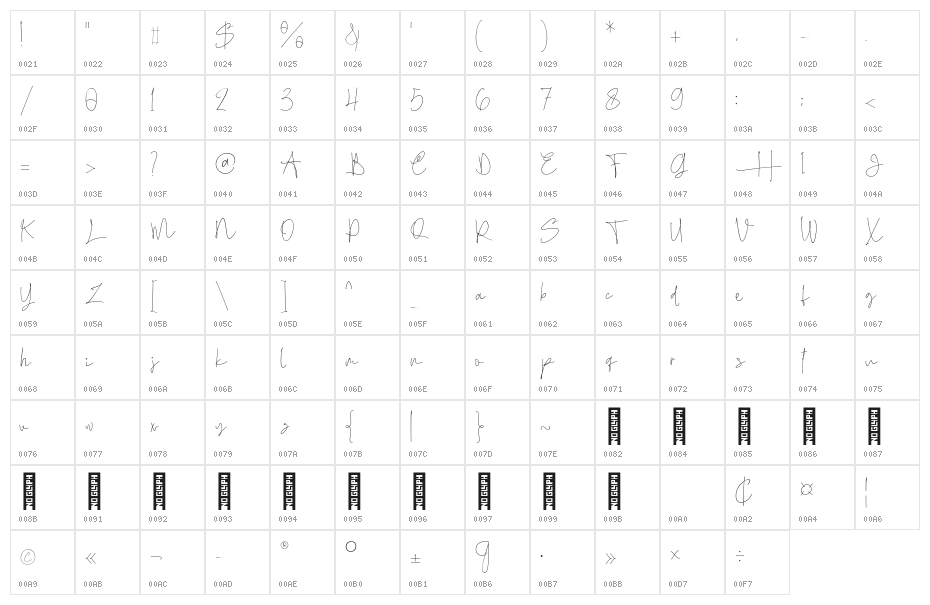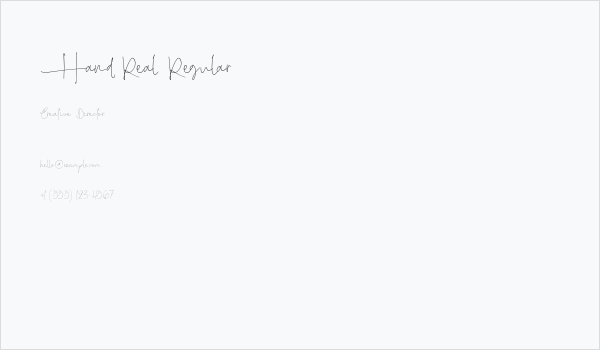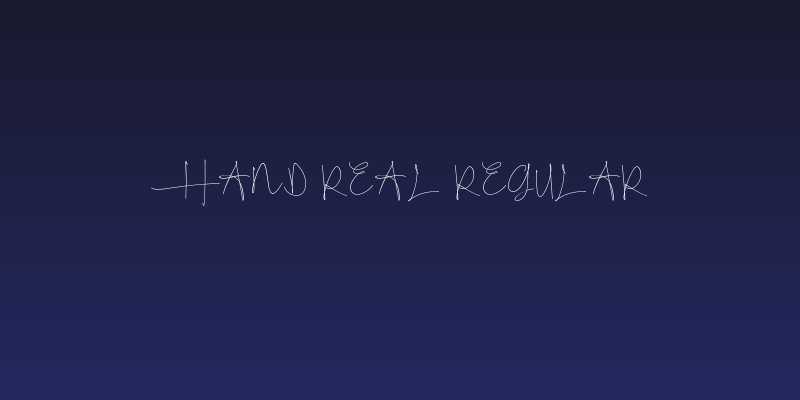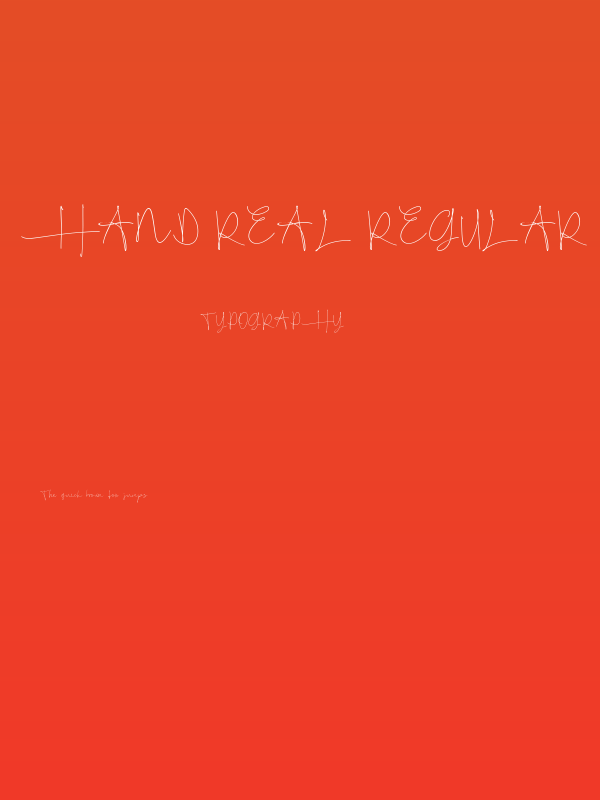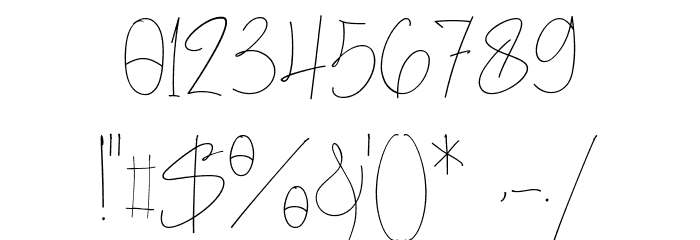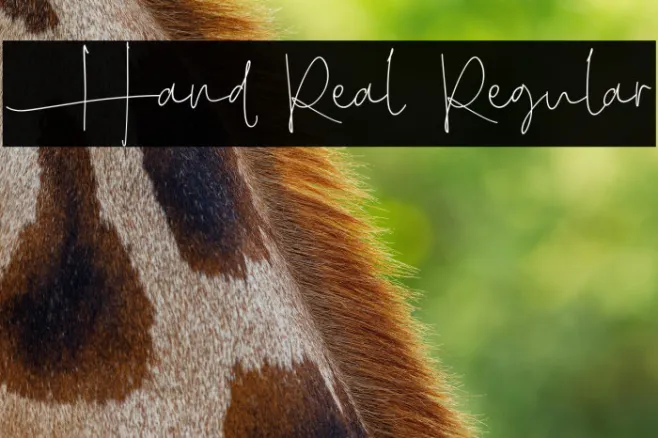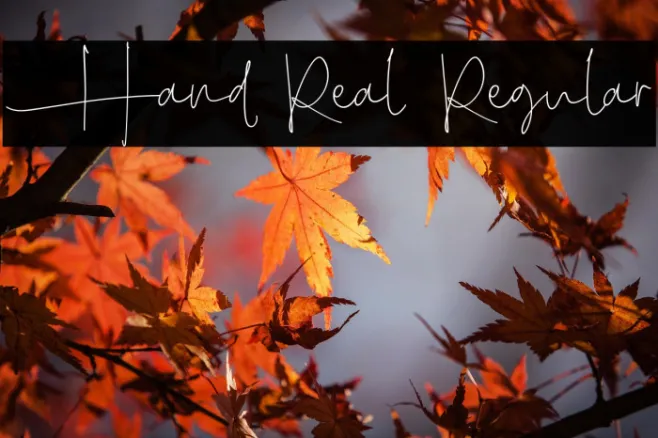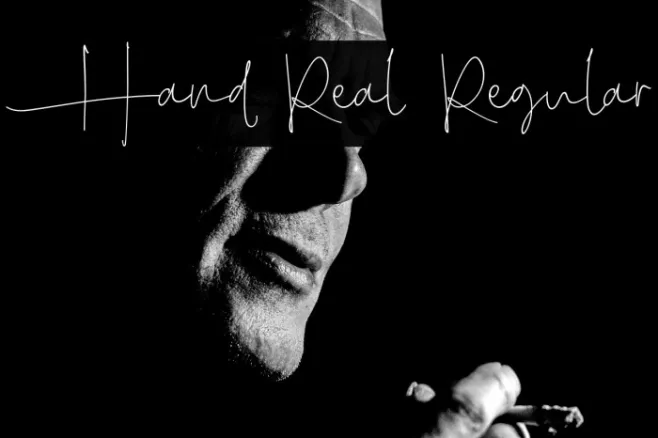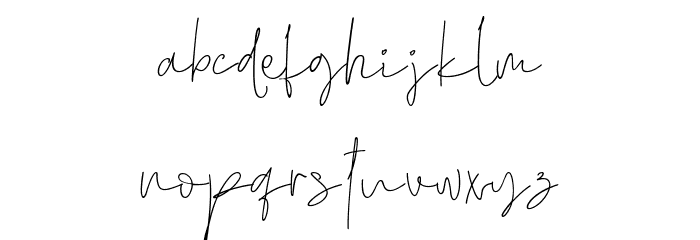
Hand Real Regular Font
Hand Real Regular Description
This font features a distinctive handwritten style that exudes a casual and personal touch. The characters are crafted with a thin, delicate line that gives an airy and light appearance. The uppercase letters are slightly taller and more pronounced, while the lowercase letters maintain a consistent flow, enhancing the handwritten feel. Numbers and special characters are seamlessly integrated, maintaining the same thin stroke and informal style. The overall design is playful yet elegant, making it suitable for projects that require a personal or artistic flair.
| Overall Style | Casual, Artistic |
| Use Case | Invitations, Greeting cards, Personal notes |
| Proposed Projects | Ideal for personal notes, invitations, greeting cards, and artistic projects that benefit from a handwritten touch. |